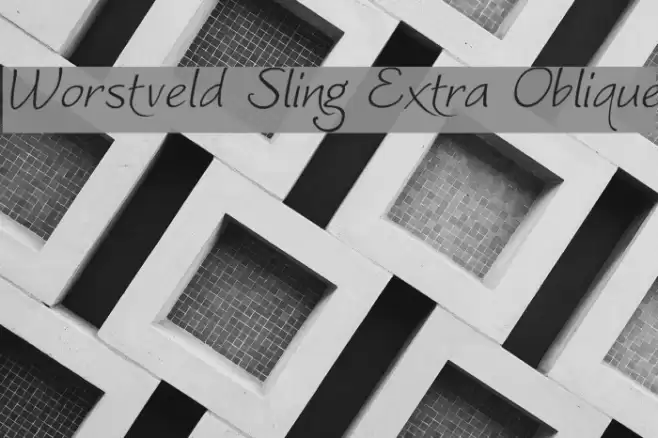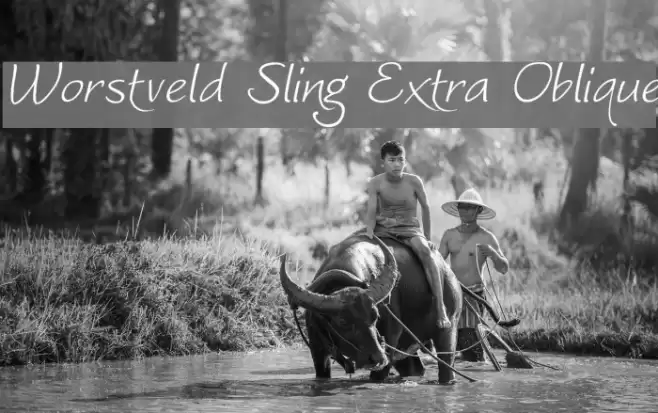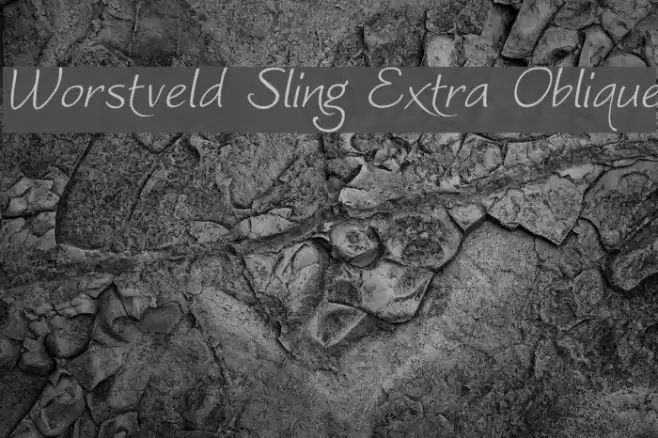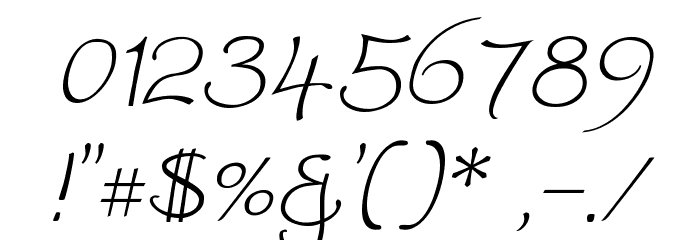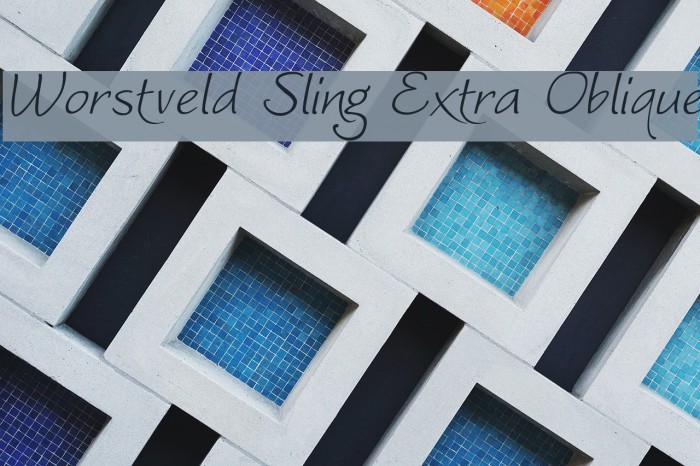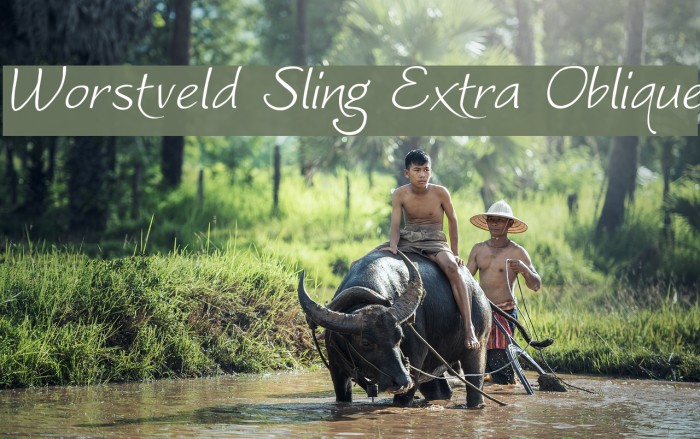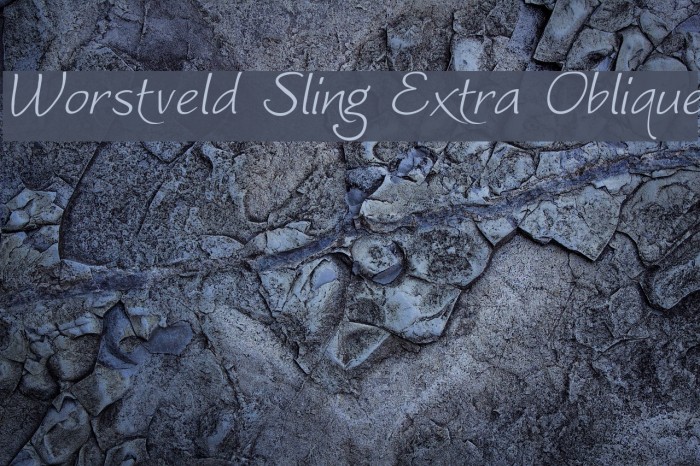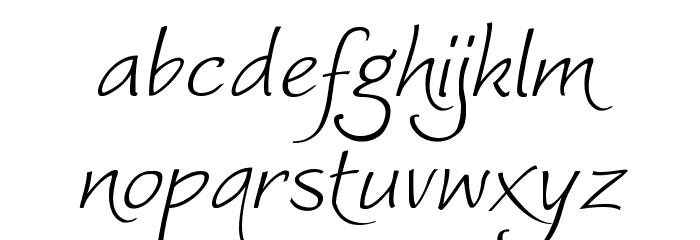
Worstveld Sling Extra Oblique Font
Worstveld Sling Extra Oblique Description
This font features a distinctive, flowing script style with an elegant and artistic flair. The characters are slightly slanted, giving an oblique appearance that enhances its dynamic and expressive nature. The strokes are smooth and fluid, with a moderate contrast between thick and thin lines, adding a touch of sophistication. The uppercase letters are tall and graceful, while the lowercase letters maintain a consistent rhythm and balance. The numerals and special characters are designed to complement the overall style, making it suitable for creative and decorative purposes.
An elegant, flowing script font with an oblique style and moderate contrast from Handwritten fonts.
- Proposed Projects: Ideal for wedding invitations, greeting cards, artistic branding, and decorative headlines.
- Use Case: Headlines, Logos, Invitations